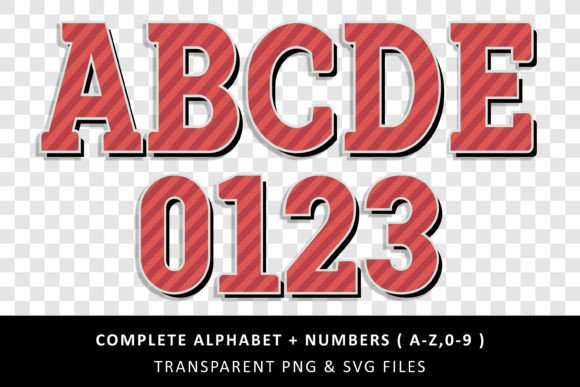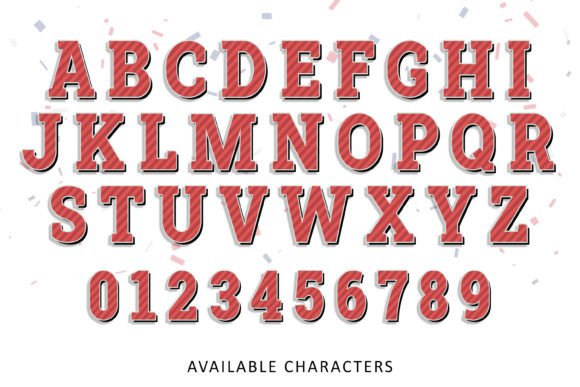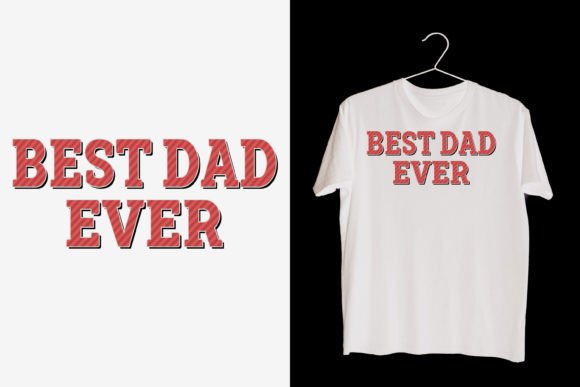
Best Dad Font
Introducing “Best Dad Font” –Inspired by Father’s fabric patterns for you to use in your upcoming Father’s Day-themed projects. It’s ideal for anything ranging from t-shirts, book designs, restaurant menus, blog writing, and greeting cards to stickers, or anything that needs a casual touch. Fall in love with its incredibly cool style, and use it to create lovely designs!